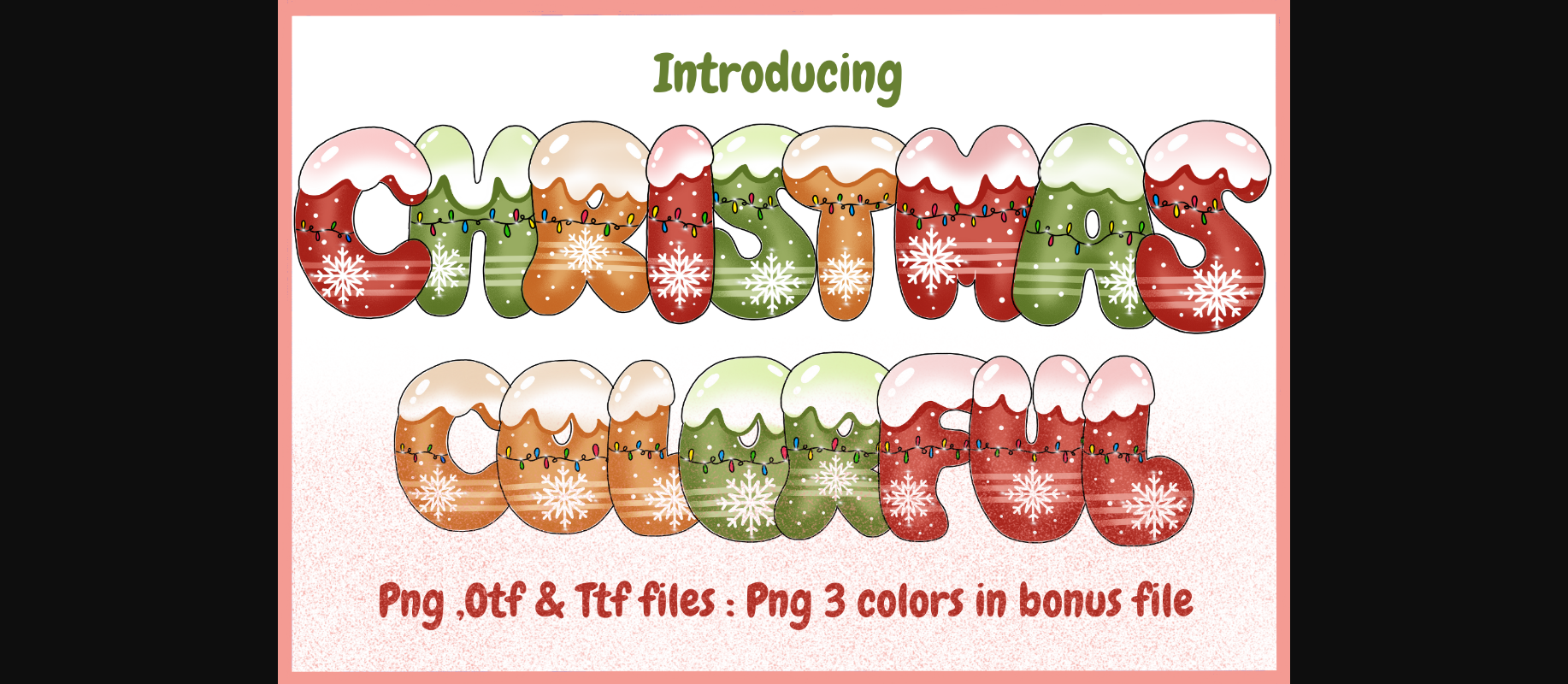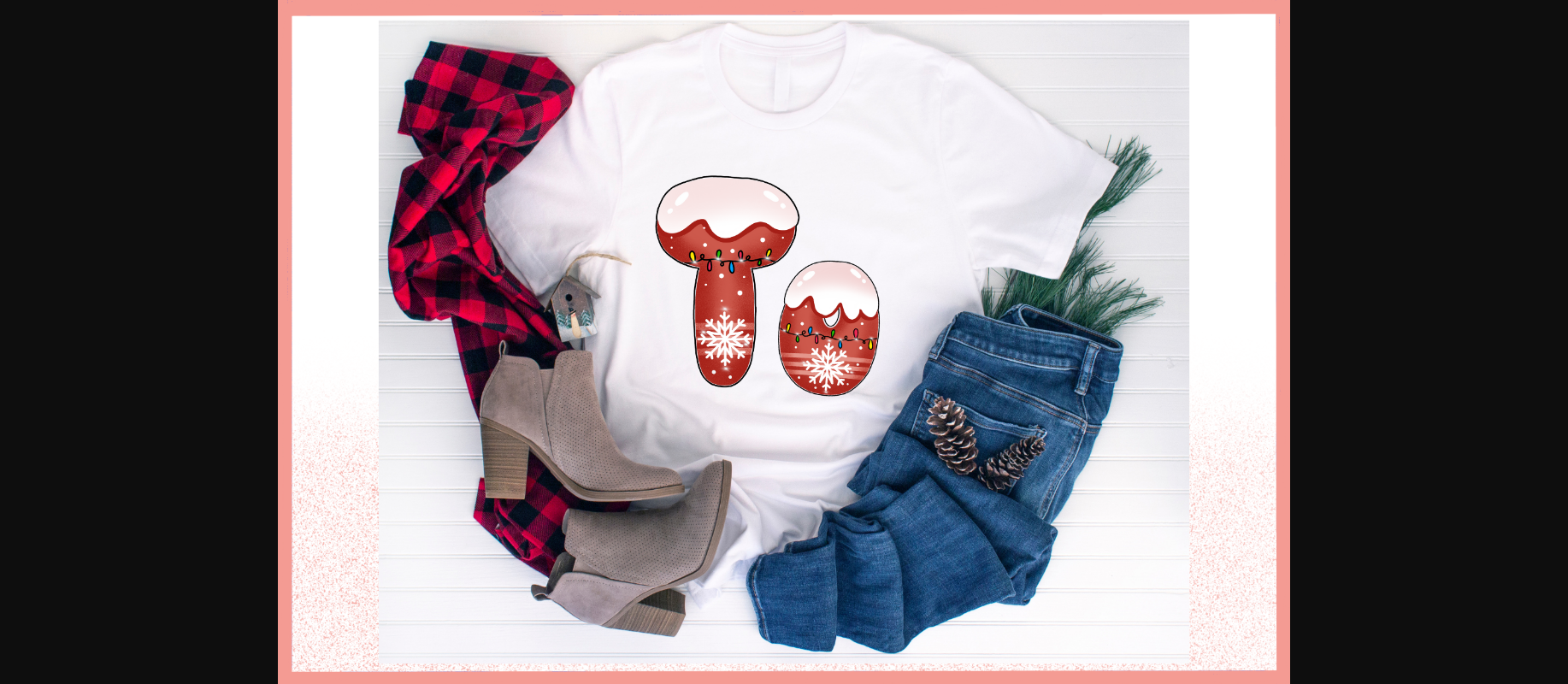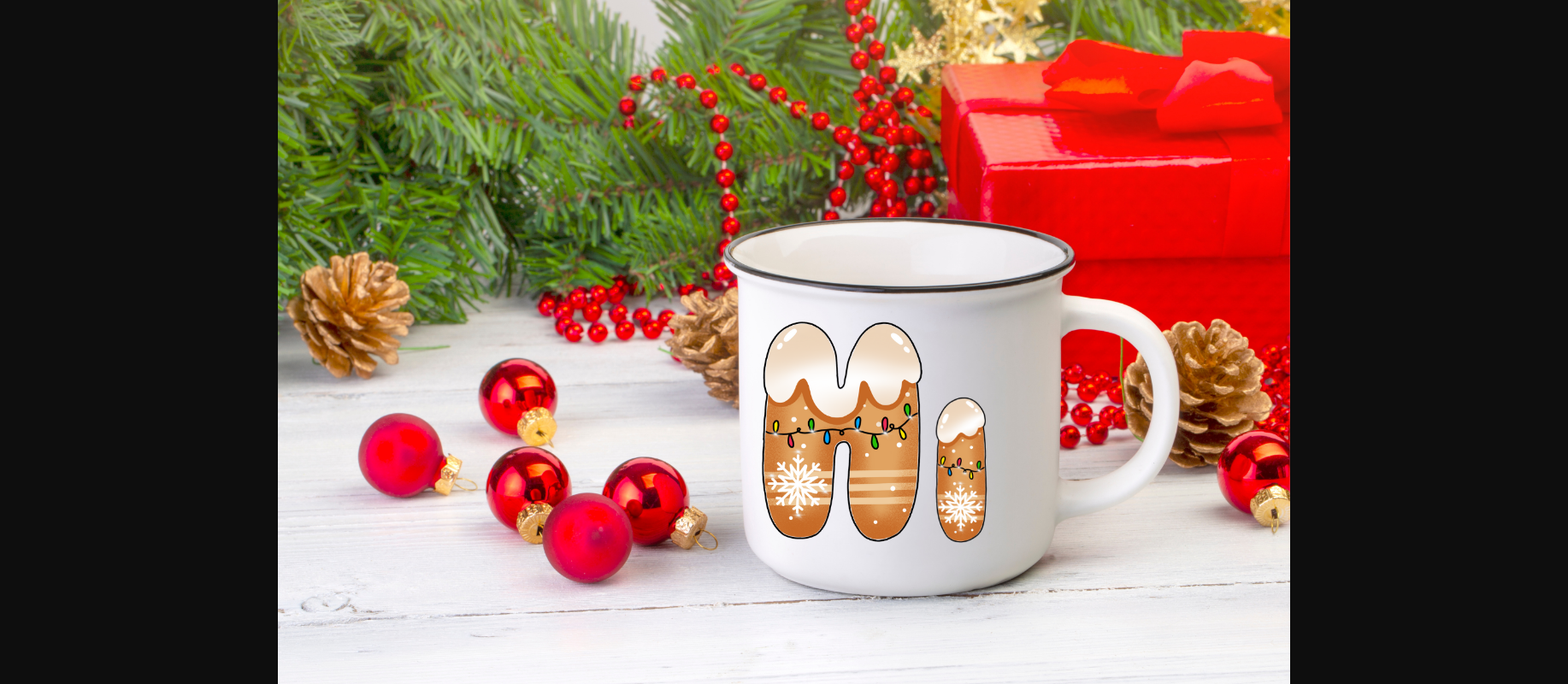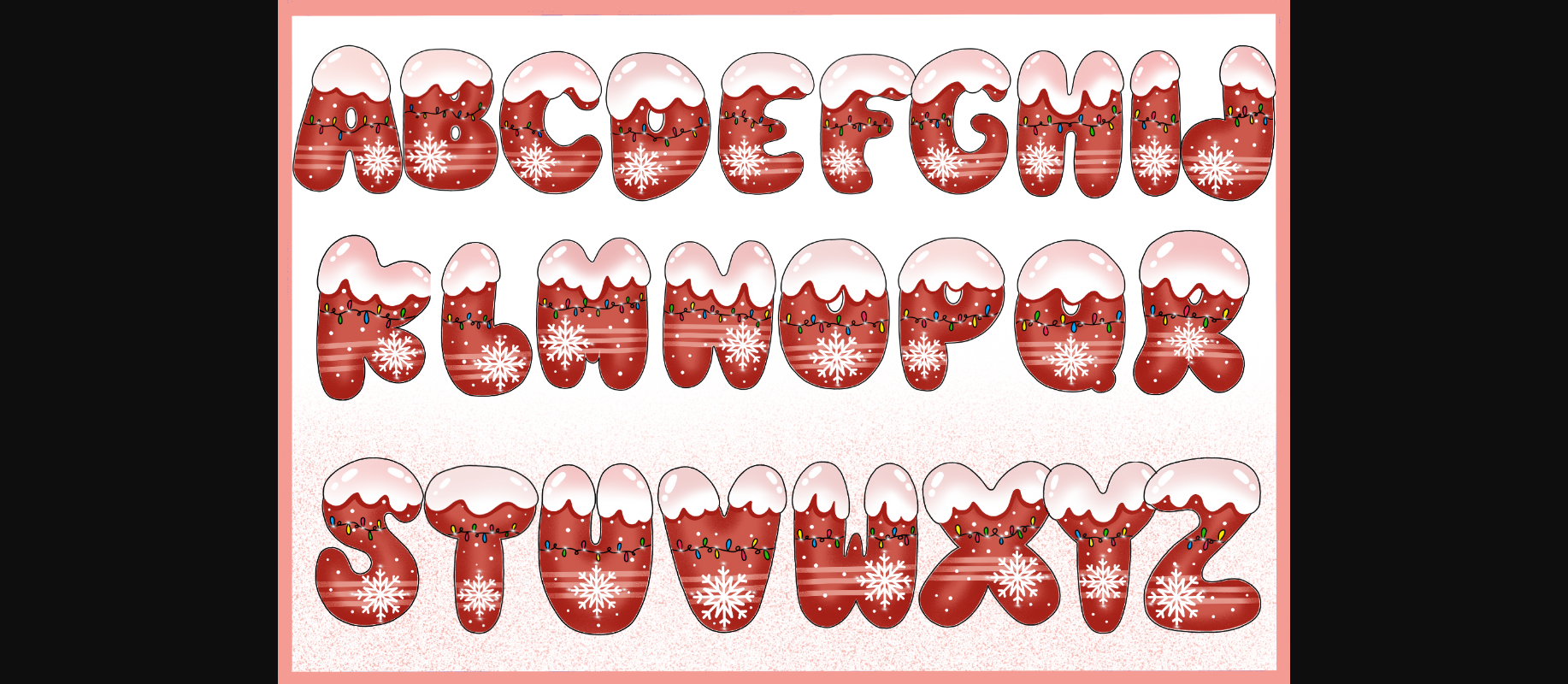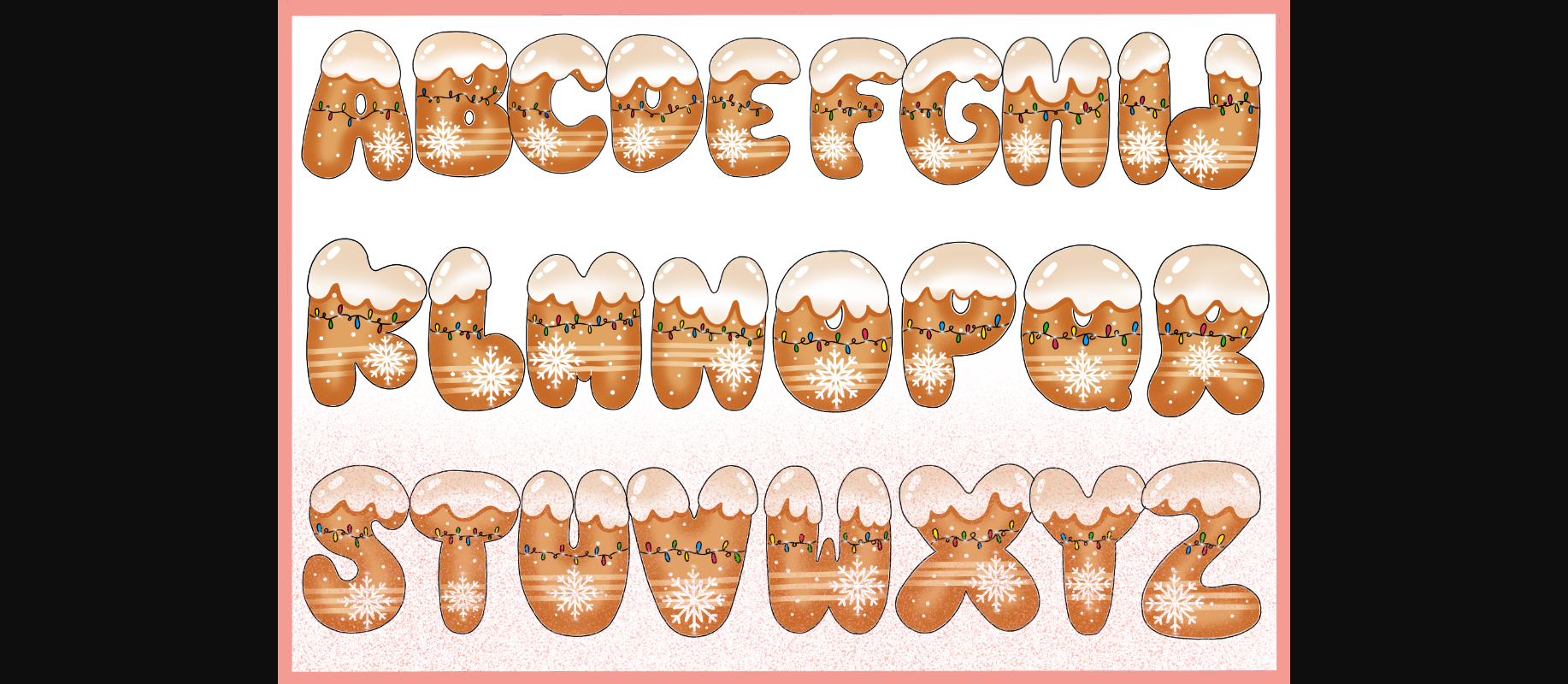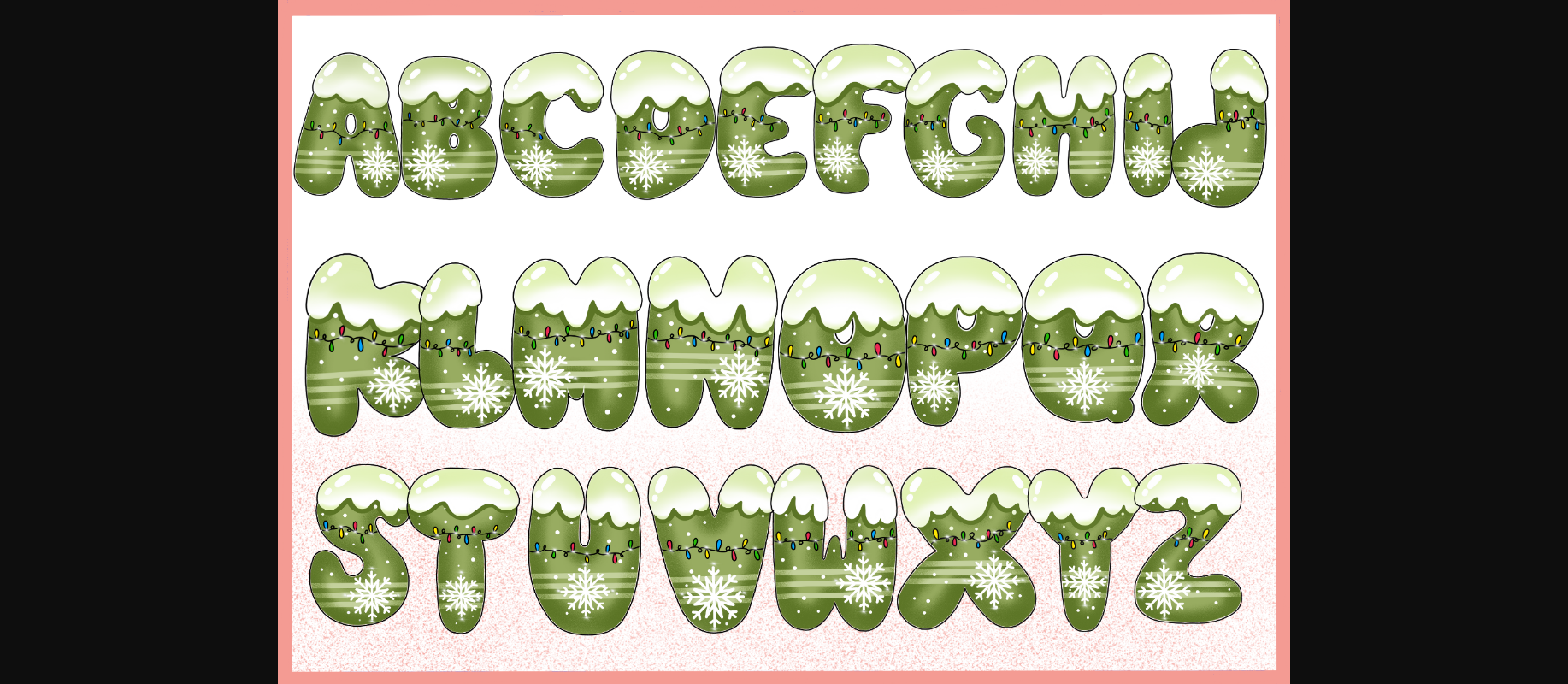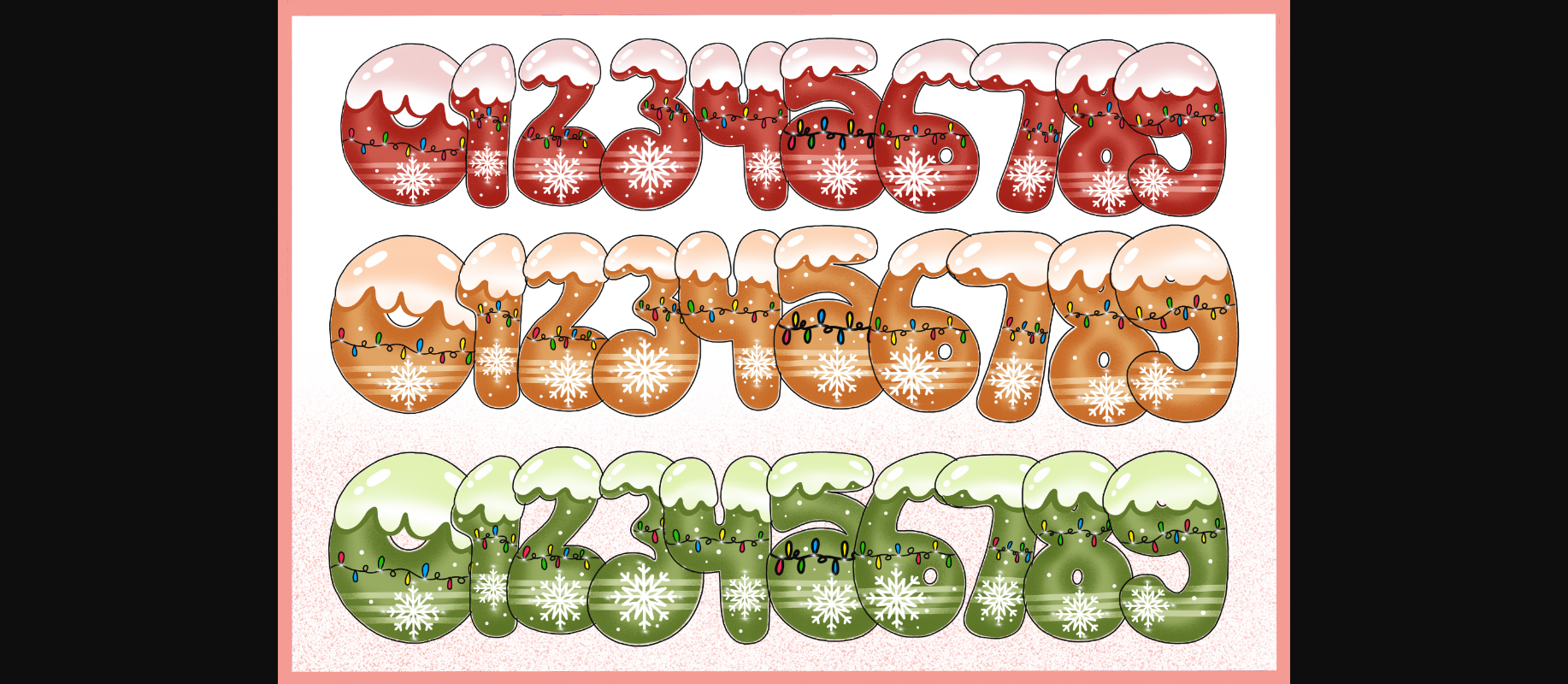
About Christmas Colorful Font
Christmas Colorful font is a delightful and chubby typeface that captures the festive spirit of the holiday season. With its playful curves and vibrant hues, this font brings a jolly and cheerful vibe to your Christmas designs. Perfect for holiday cards, gift tags, and seasonal decorations, Christmas Colorful adds a touch of merriment to your text that’s sure to spread holiday joy.